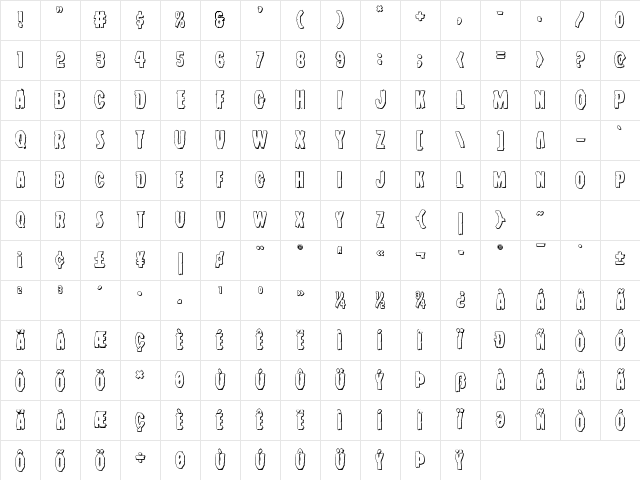
Young Frankenstein 3D Regular
Young Frankenstein 3D Family
Complete Young Frankenstein 3D Regular glyph index. Displaying only characters natively supported by Young Frankenstein 3D Regular font.
Design Context for Young Frankenstein 3D
Young Frankenstein 3D is a composed and adaptable typeface that performs quietly and consistently across a wide range of design contexts.